Abstract Brush with Rachel Yallop
Dressed in her trademark colours of red, white and black, Rachel gave SLLA members a one day workshop on abstract designs and large letters using a flat brush. Starting with examples of her wonderful abstract designs, Rachel explained to participants how they would be using a minimal palette to create maximum effect in a piece of work.
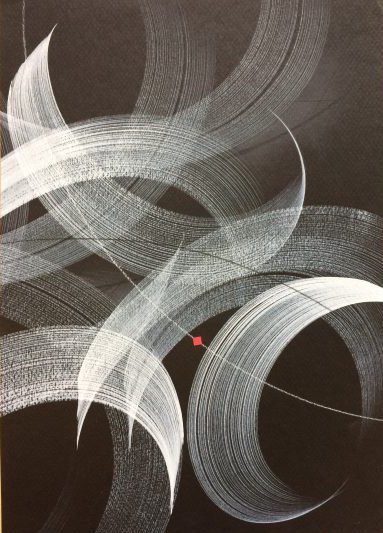
Demonstrations were followed by hands on practice exploring lines, textures and overlapping forms and everyone was fascinated to see what a difference a tiny application of red could make to a piece of work. Lots of interesting pieces for the show and tell at the end of the day and what had been a fascinating workshop.